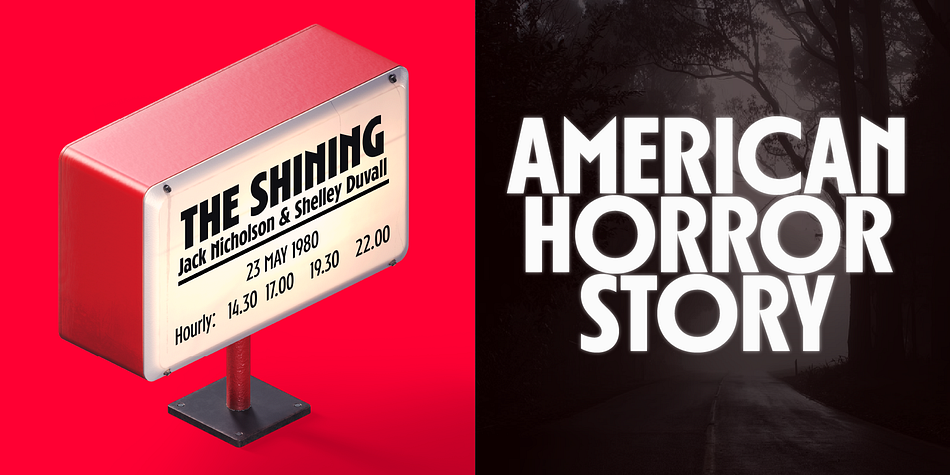
Rosso
Designed by Gaspar Muñoz, Rosso is a sans serif font family. This typeface has twenty styles and was published by W Type Foundry.
Rosso is a condensed geometric Sans with a retro style, inspired by various typographic styles. It features the Roslyn Gothic structure, which was popularly used for the covers of Philip K. Dick’s books in the 1970s.
Rosso has 10 variants from Ultra Light to Black with their respective Italics. In addition, it is divided into two Subfamilies, Normal and Alt.
The normal one remains faithful to the proportions of Roslyn Gothic and classic geometric fonts, while the Alternative version expands its round shapes, generating a striking and unique rhythm and contrast, classic of Art Deco fonts.
In addition, it has alternative glyphs and discretionary ligatures inspired by the work of Herb Lubalin, which add greater possibilities to face any design project.
All this makes Rosso a font full of personality, striking and recognizable. Ideal for the construction of logos, eye-catching headlines, movie posters, volumetric posters, etc.